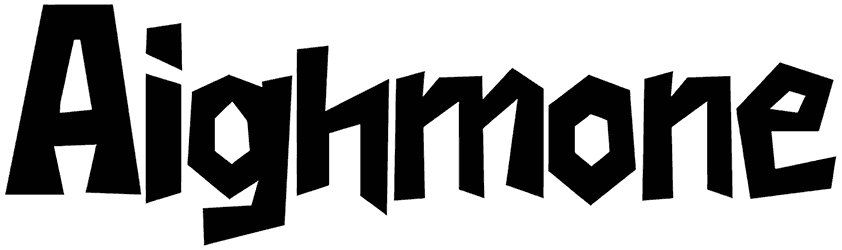
Aighmone Font
With a chunky, funny, and cool face, it comes up to catch everyone’s attention to get it and pleasured; Aighmone serves as your savior to pull out your typography from the monotonous and typical form.
This cartoon font with geometric shapes can do tricks in many illustrations, such as animations, storybooks, covers, stickers, and the like. Make sure that this stone font with a long railroad of A to Z alphabets satisfies your needs and provides a new and successful experience.